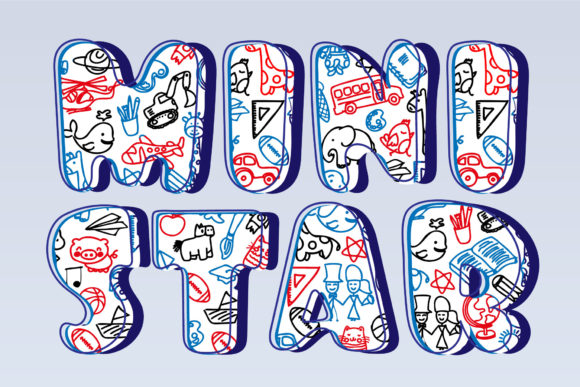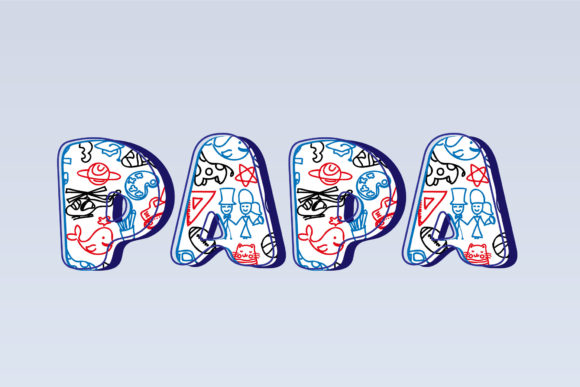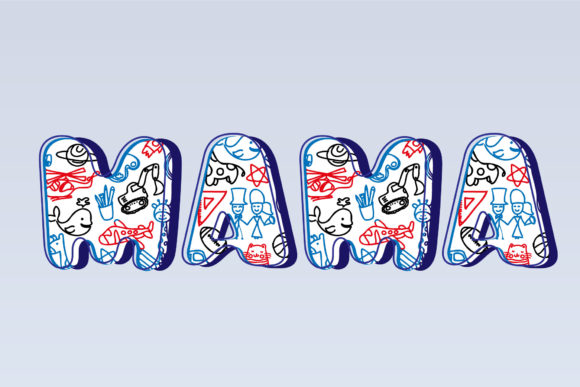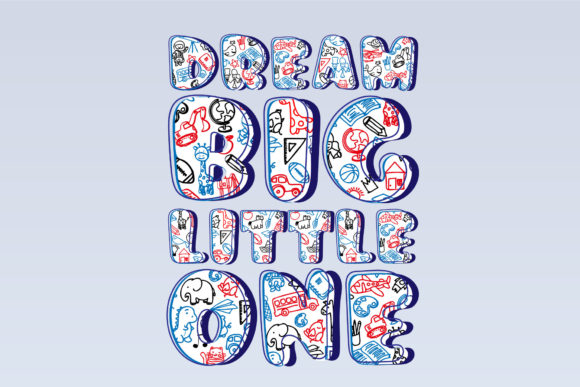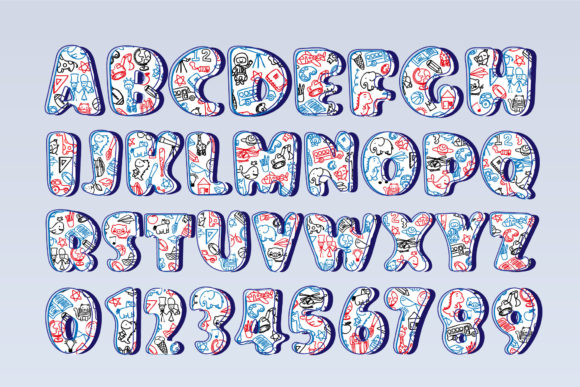
The Ultimate Guide to Boy Font: Adding a Bubbly Touch to Your Designs
Have you ever been in the middle of a design project, and suddenly, you just can’t seem to find the right font? I recall a particularly frustrating experience while working on a children’s book project. My client wanted a font that was not only fun but also thick and easy to read. After scouring through hundreds of fonts, I stumbled upon Boy Font, and it instantly became the perfect fit. In this article, we’ll dive into the wonderful world of Boy Font, exploring its features, uses, and some fantastic alternatives.
An Honest Review of Boy Font
Boy Font has quickly become a favorite in my design toolkit, and for good reason. Here are some things I love about it:
- ✨ Fun and playful vibe: Boy Font has a bubbly personality that’s perfect for designs that need a bit of whimsy.
- ✅ Thick and easy to read: The font’s bold design makes it ideal for headlines, titles, and short texts.
- 💡 Versatile: Boy Font can be used in a variety of design projects, from children’s books to posters and social media graphics.
Of course, no font is perfect, and Boy Font has a few minor quirks:
- 🤔 Limited use for body text: Due to its bold design, Boy Font might not be the best choice for longer texts or body paragraphs.
- ⚠️ Not suitable for very small sizes: The font’s thick lines and playful curves can become distorted or lost when used at very small sizes.
The Backstory of Boy Font
While the origins of Boy Font are shrouded in mystery, it’s clear that the designer aimed to create a font that’s both fun and refreshing. The result is a beautiful and bubbly font that’s perfect for adding a touch of whimsy to your designs. Whether you’re a designer, crafter, or creative hobbyist, Boy Font is sure to inspire your next project.
| What is Boy Font best used for? | Boy Font is ideal for designs that need a fun, thick, and playful vibe, such as children’s books, posters, and social media graphics. |
| What are some common design mistakes to avoid when using Boy Font? | Be cautious not to overuse the font, and avoid using it for very small text sizes or body paragraphs. |